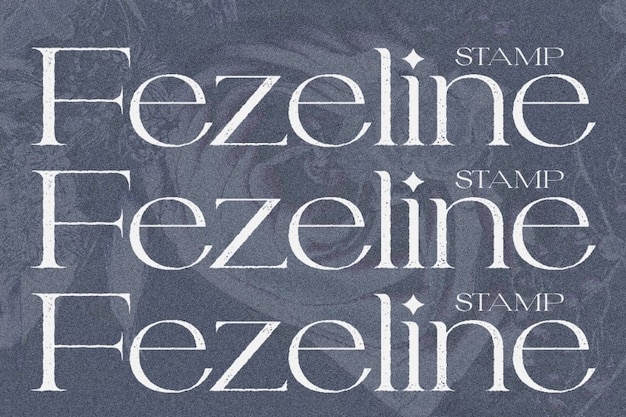
Fezeline Stamp Regular Font
"Fezeline Stamp Regular" font strikes a balance between simplicity and impact, embodying the essence of a classic stamp. With clean lines and basic shapes, it exudes a timeless elegance that commands attention. Perfect for projects requiring a touch of authenticity and authority, it leaves a lasting impression with its straightforward yet striking design.